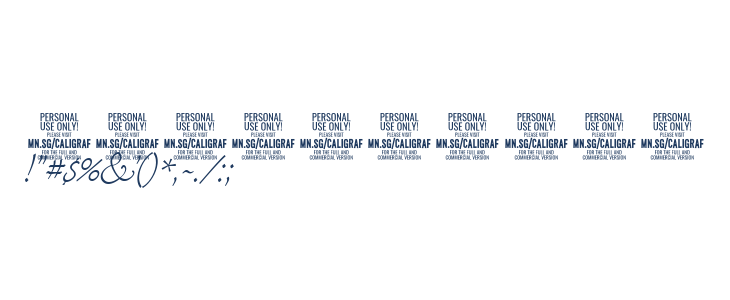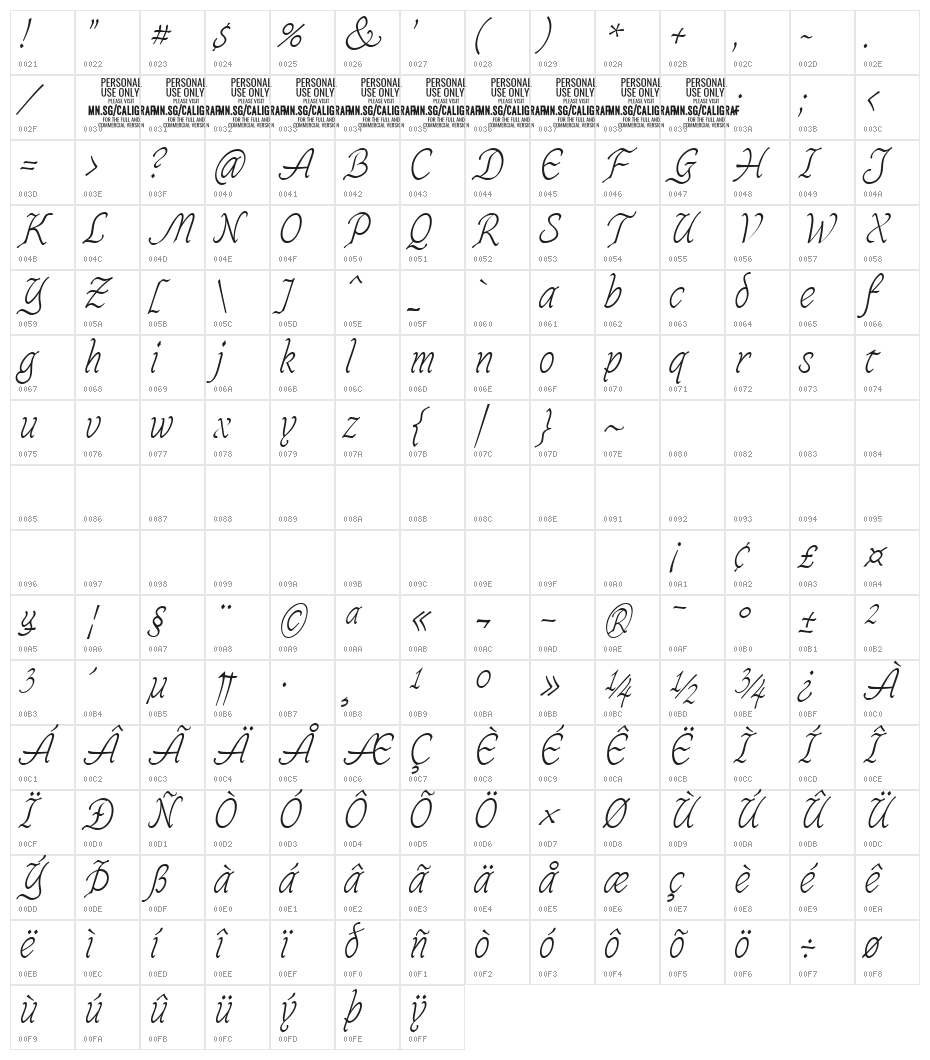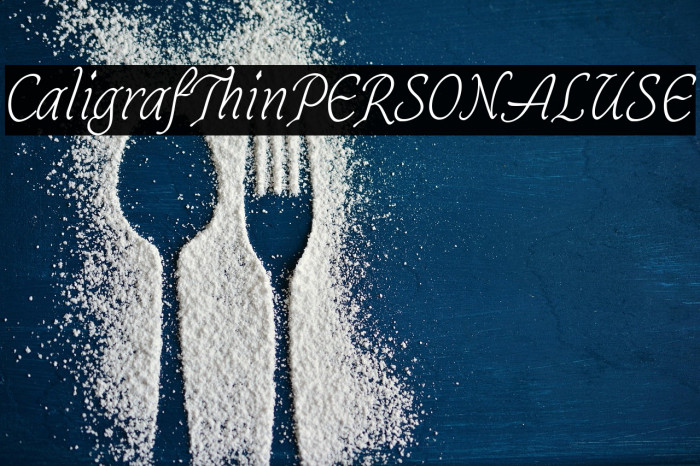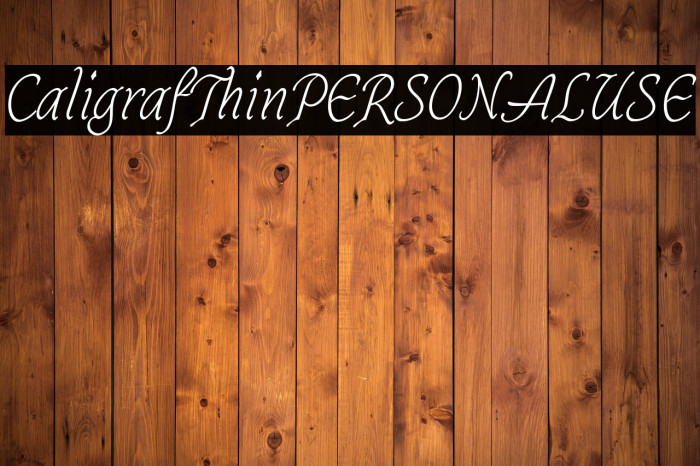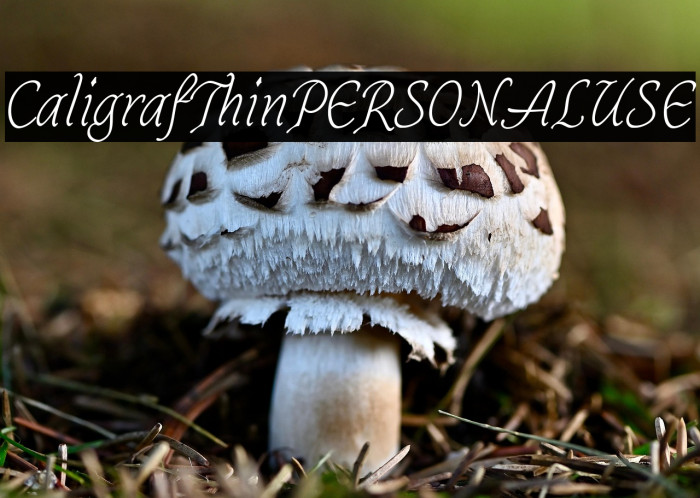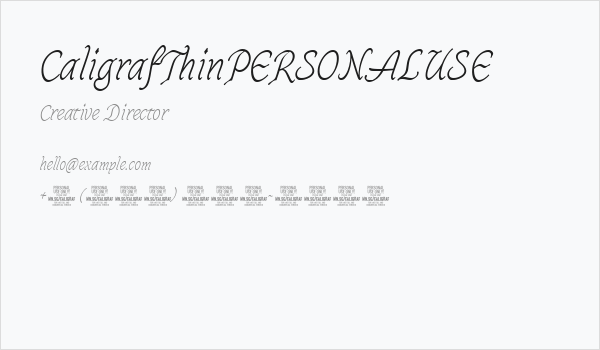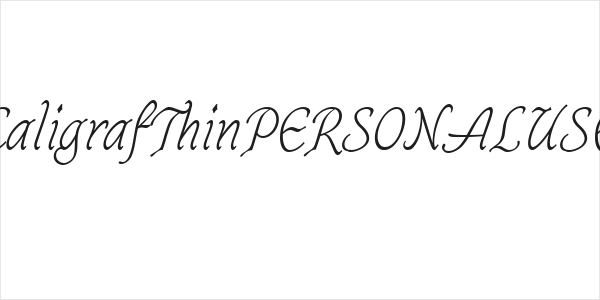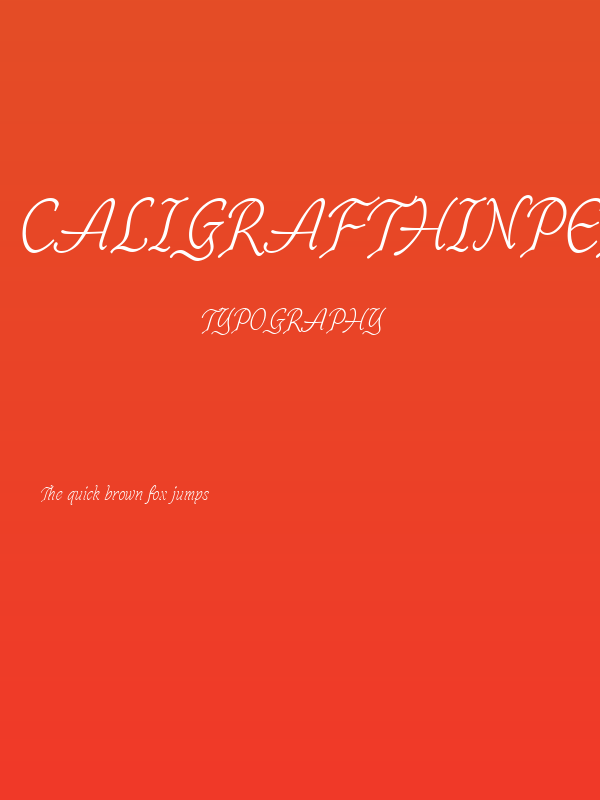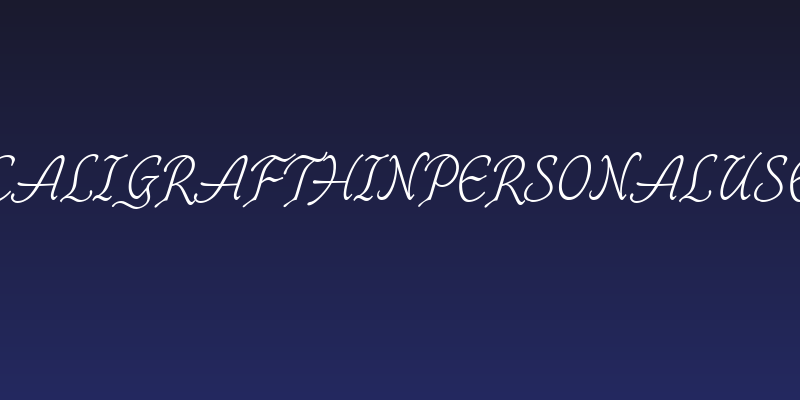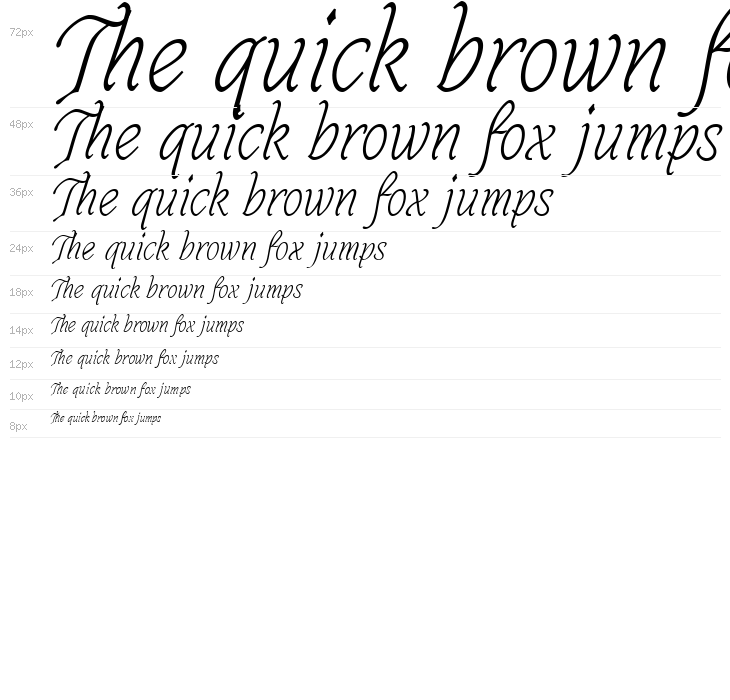
CaligrafThinPERSONALUSE Font
CaligrafThinPERSONALUSE Description
This elegant script font features a flowing, cursive style with thin, delicate strokes that give it a refined and sophisticated appearance. The uppercase letters are gracefully elongated, while the lowercase characters maintain a consistent fluidity, enhancing the overall aesthetic. The font's thin lines and gentle curves create a sense of movement and elegance, making it ideal for formal and decorative applications. The special characters, including punctuation and symbols, are designed to complement the script style, maintaining the same level of intricacy and detail.
Overall StyleElegant, Decorative
Use CaseHeadlines, Invitations, Branding
Proposed ProjectsIdeal for wedding invitations, elegant branding, personal stationery, and decorative headings.